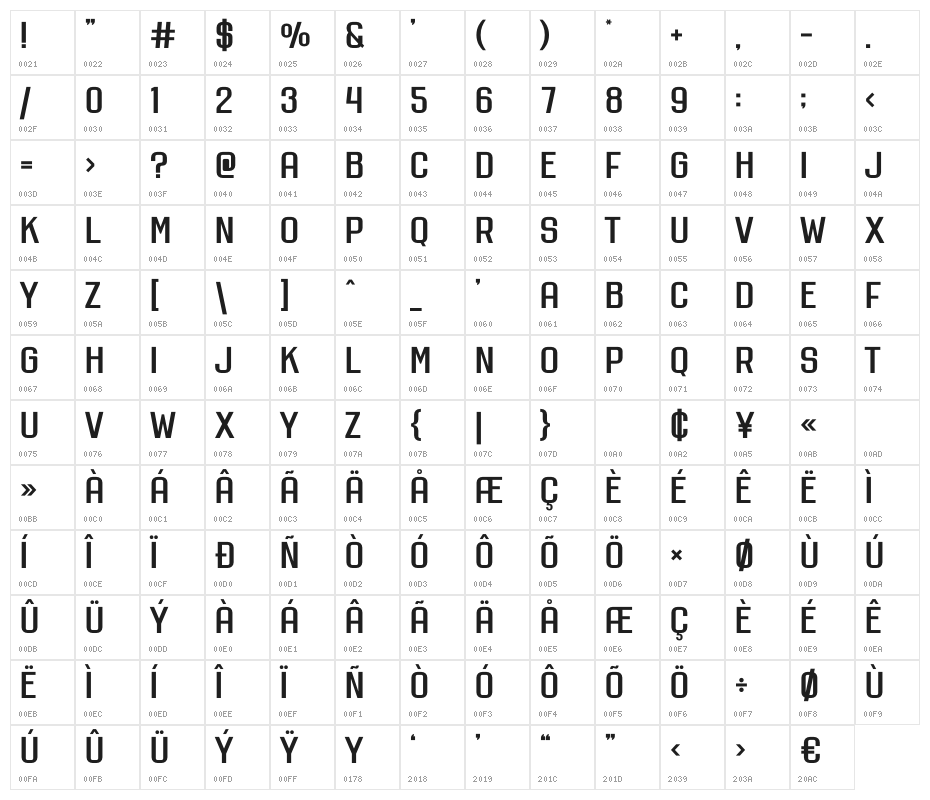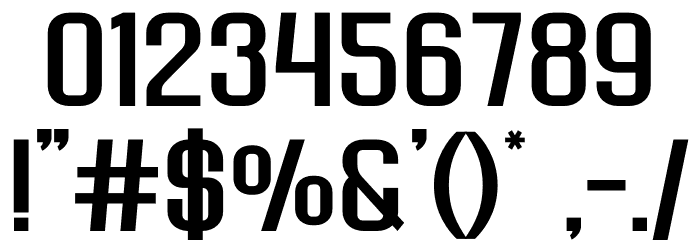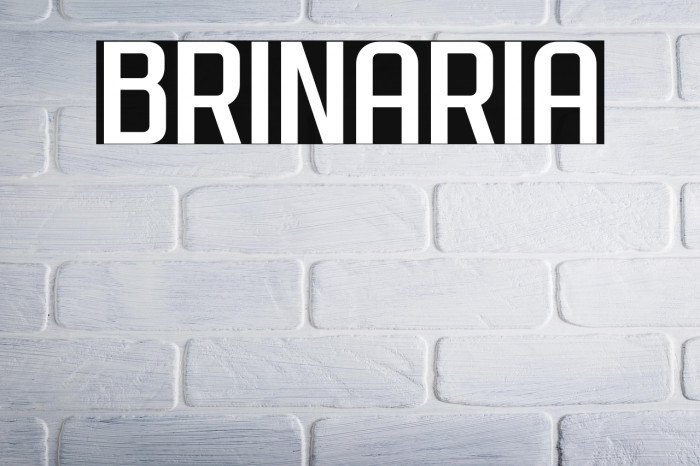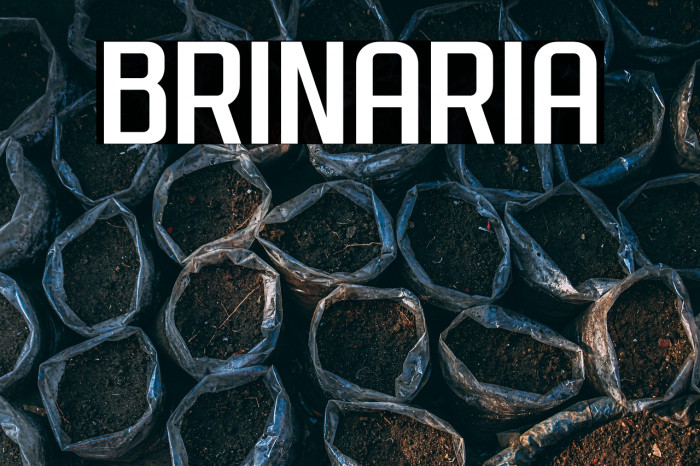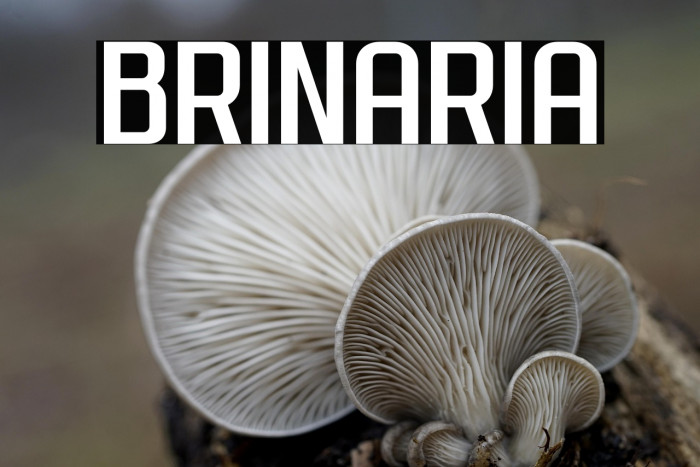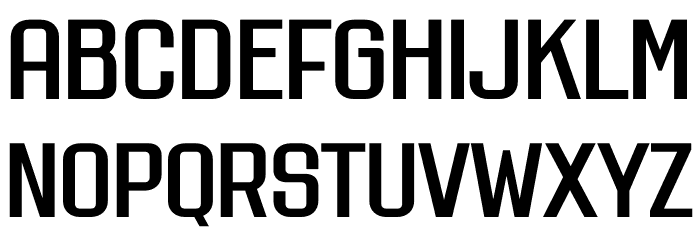
Brinaria Font
Brinaria Description
This font features a bold, geometric sans-serif style with a modern and clean appearance. The characters are uniform in width, creating a balanced and structured look. The uppercase and lowercase letters maintain a consistent height, contributing to a cohesive design. The numerals are clear and easily distinguishable, while the special characters are well-integrated, maintaining the font's overall aesthetic. The straight lines and sharp angles give it a contemporary feel, making it suitable for various design applications.